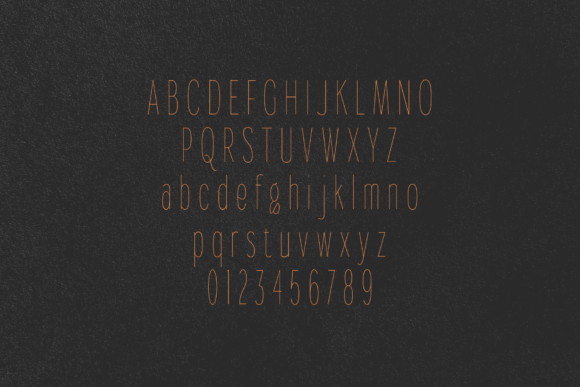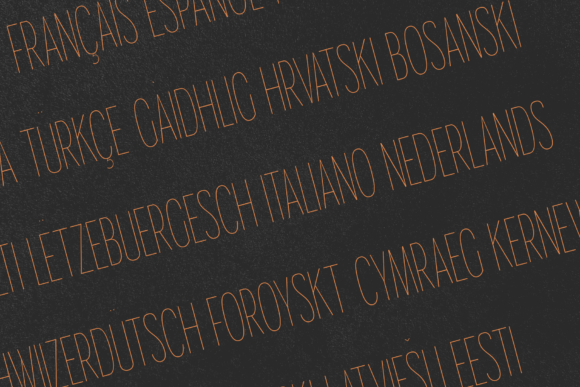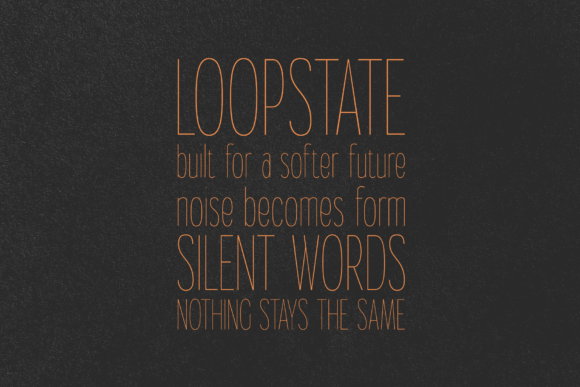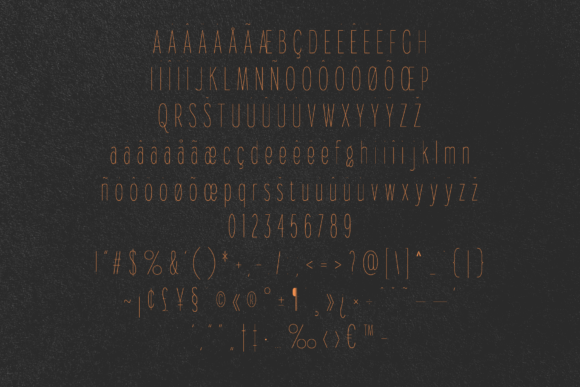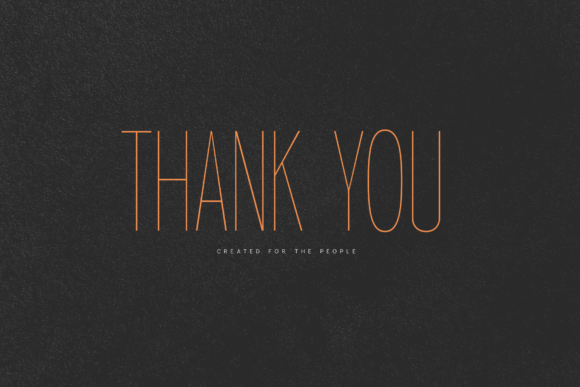
The Gorga Font: A Modern Condensed Headline Typeface for Creative Projects
Have you ever been in the middle of a design project, and suddenly, you’re stuck on finding the perfect font? I recall a recent experience where I was working on a branding project for a fashion client, and I just couldn’t find a font that screamed elegance and modernity. That’s when I stumbled upon the Gorga font, and it completely transformed my design. In this article, we’ll dive into the world of Gorga, exploring its features, uses, and what makes it an excellent addition to your typography arsenal.
A Personal Review of Gorga
What I Love About Gorga ✨
- 💡 Clarity and Elegance: Gorga’s tall proportions, soft curves, and minimal construction make it perfect for headlines, posters, and statement typography.
- 🌎 International Support: The font includes full uppercase and lowercase characters, numerals, punctuation, symbols, and extended Latin language support, making it suitable for global use.
- 📈 Versatility: Gorga performs well at large sizes, but it’s also legible at smaller sizes, making it ideal for various applications, from brand identities to web design.
- 👍 Approachable yet Precise: The rounded terminals add a human touch without sacrificing architectural precision.
- 🤔 Limited Use at Small Sizes: While Gorga is versatile, it’s best used at larger sizes where its features truly shine. At smaller sizes, it might lose some of its elegance.
- ⚠️ Glyph Overload: With a wide range of glyphs and OpenType features, it can be overwhelming to navigate for beginners.
A Practical Guide to Using Gorga
The Backstory of Gorga
Gorga was designed with a calm, forward-looking aesthetic in mind. Its creator aimed to craft a font that balances strength and subtlety, making it perfect for contemporary branding and editorial layouts. Inspired by modern architecture and sleek design, Gorga embodies a sense of elegance and restraint.
Q: What is Gorga best used for?
A: Gorga is ideal for brand identities, headlines, posters, magazines, packaging, web design, social media graphics, and modern visual systems.
Q: Does Gorga support non-English languages?
A: Yes, Gorga includes extended Latin language support, making it suitable for international use.